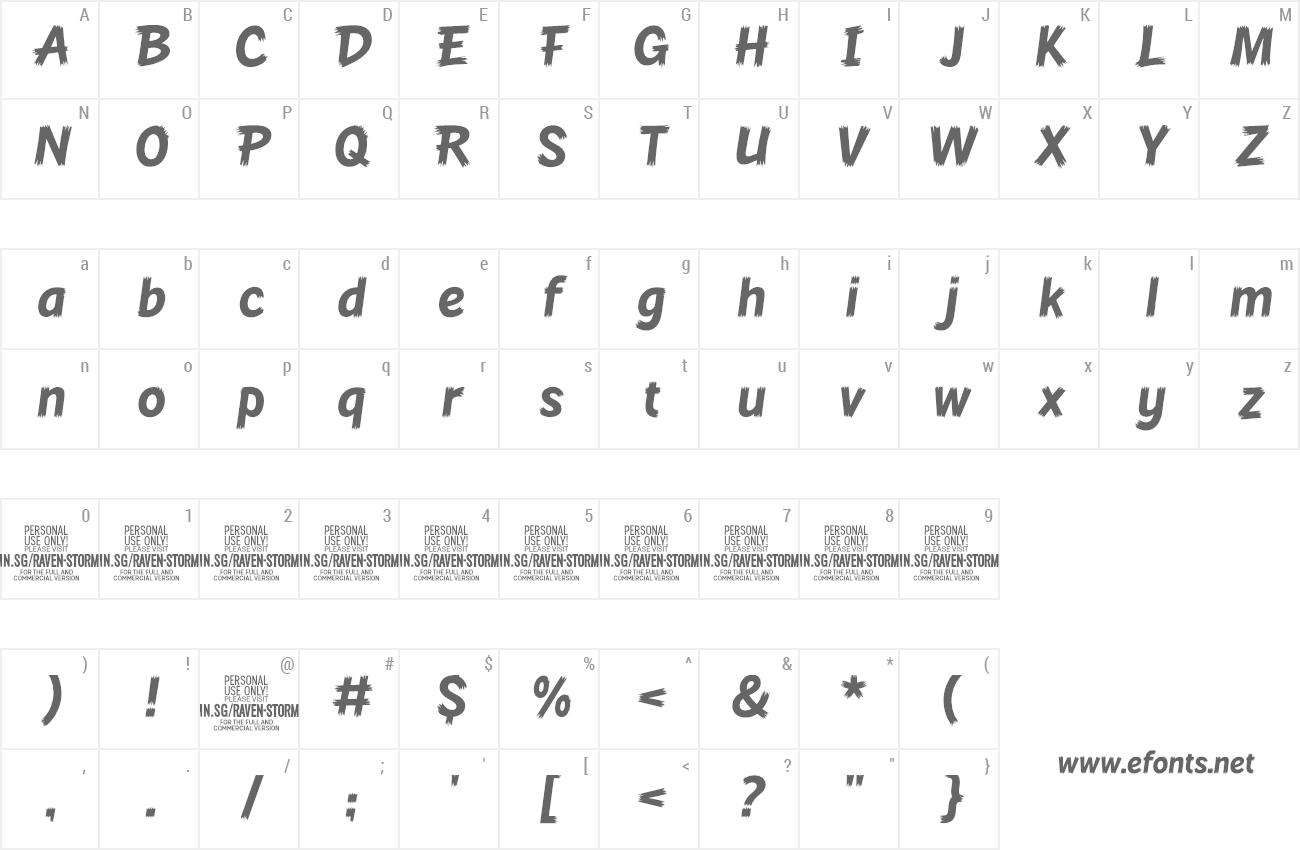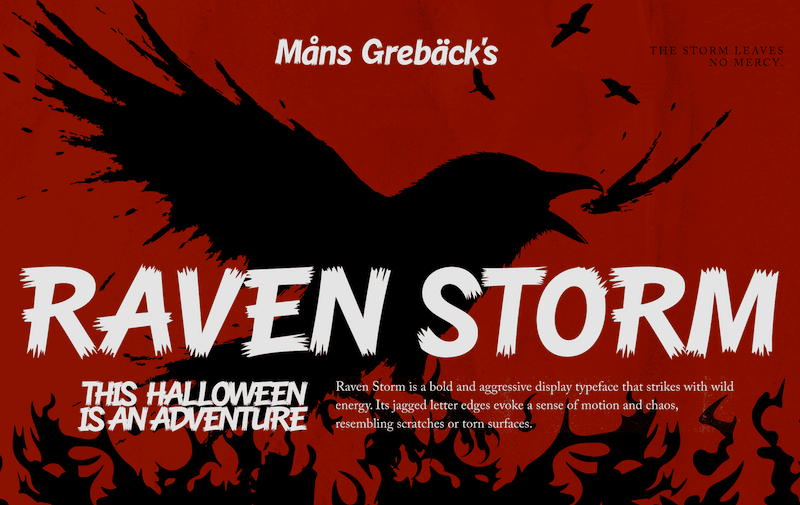
Preview and download Raven Storm Font. Created by Måns Grebäck in Holiday Halloween styles with Free for personal use license.
NOTE: This font is for PERSONAL USE ONLY! To purchase a commercial license, visit: https://www.mansgreback.com/product/raven-storm Raven Storm is a bold and chaotic display typeface, slashed with wild streaks of motion and energy. It captures the untamed force of a tempest, like letters torn through a windstorm, each form pushing forward with fearless velocity. For questions, please visit https://mansgreback.com/faq |